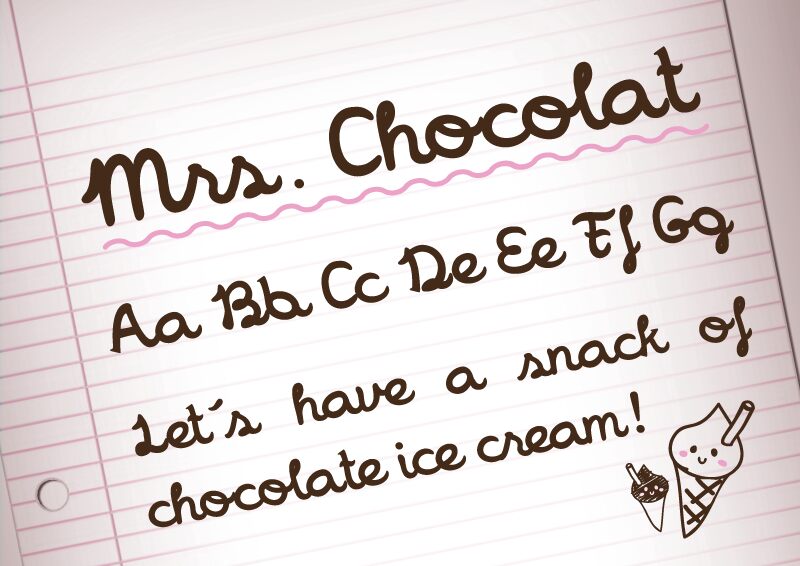
Mrs Chocolat is a free handwritten font with broad, rounded strokes and an exuberant hand-lettered shape. Its letters lean, loop, and change width in a way that feels quickly drawn rather than carefully formalized. The uneven joins are especially lively.
Sweet treats and cheerful celebrations are a natural match for this bouncy lettering. It can give bakery packaging and cafe branding the look of a hand-painted shop sign, and its oversized curves suit children's party invitations. Food illustrations, candy colors, and playful event graphics share the font's soft shapes and informal movement, so the lettering can become part of the artwork.
Mrs Chocolat